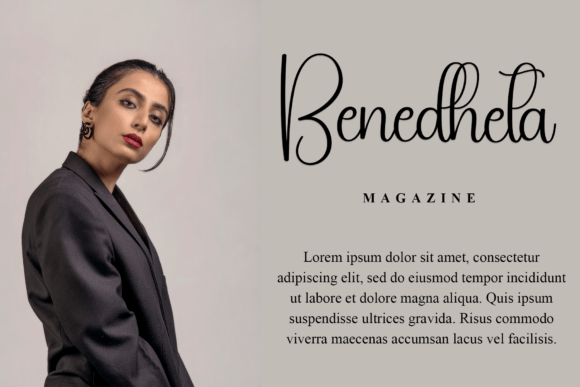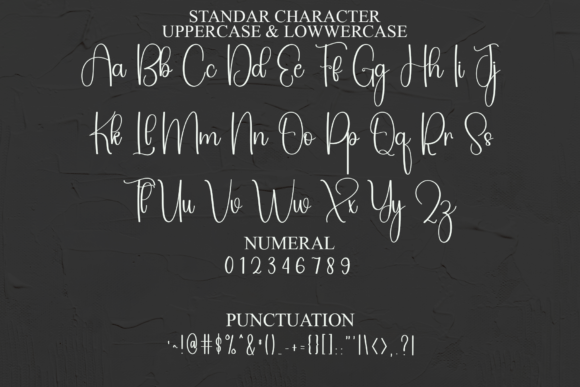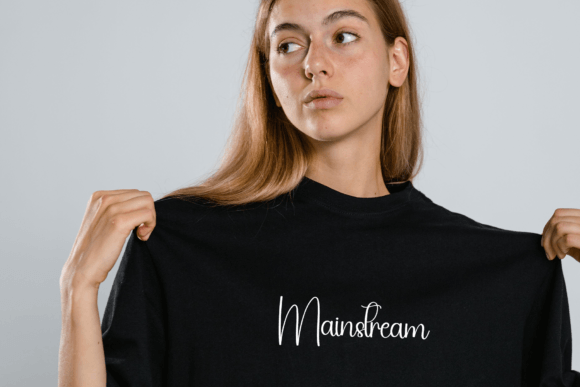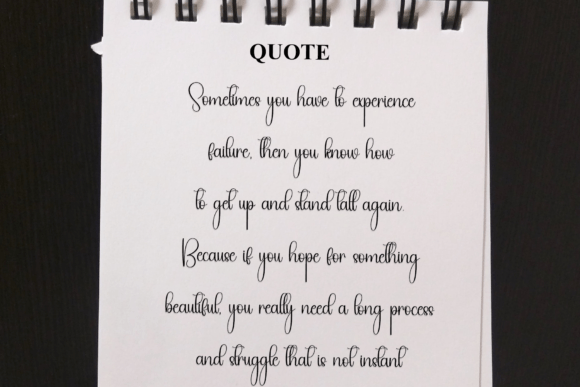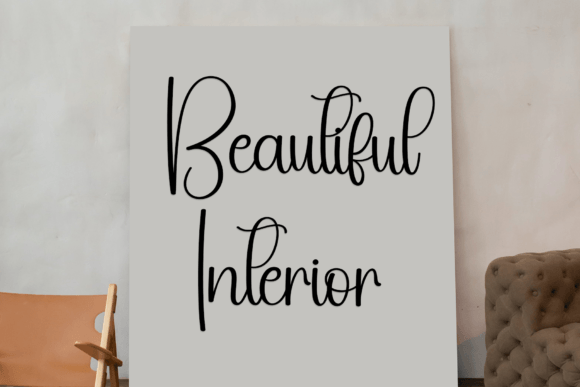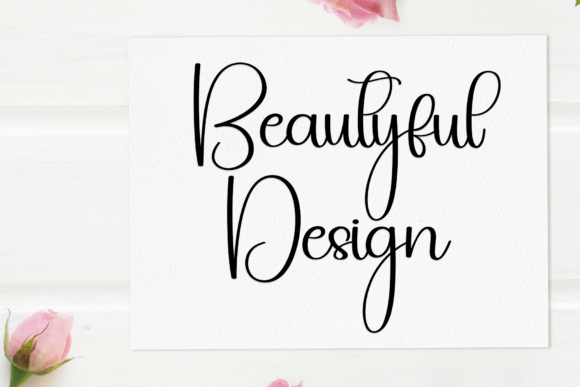
Introduction to Creative Handwriting Font
Creative Handwriting is a delicate, elegant, and flowing handwritten font.
It has beautiful and well-balanced characters and as a result, it matches a wide pool of designs Add it to your most creative ideas and notice how it makes them come alive.
Key Features of Creative Handwriting Font
Why Choose Creative Handwriting Font?
Creative Handwriting Font offers exceptional quality and versatility, making it a valuable addition to your design toolkit. Whether you’re creating for personal projects or commercial use, Creative Handwriting Font delivers professional results.